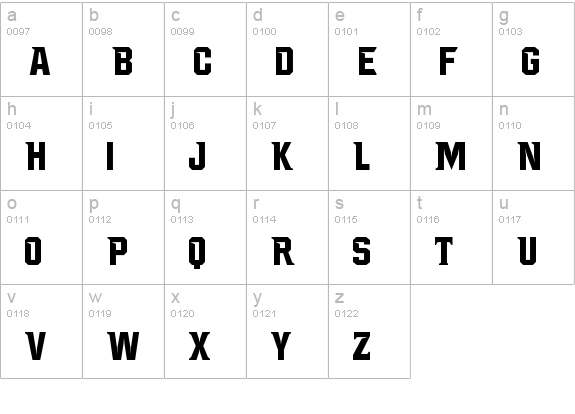
NCAA Michigan St Spartans Font Details
The NCAA Michigan St Spartans font is a stunning and bold typeface that captures the spirit of the Michigan State Spartans perfectly. With its strong and athletic letterforms, this font conveys a sense of power and determination, making it ideal for sports-related designs and projects. What sets this font apart is that it is not only visually striking but also freely available to download at FontsMarket.com. This means that anyone can easily access and utilize this remarkable font for their personal or professional designs without any cost. The NCAA Michigan St Spartans font features clean lines, sharp edges, and an overall sleek appearance, making it highly legible even at smaller sizes. Whether you're creating a logo, designing a sports poster, or crafting a t-shirt for game day, this font will make a bold statement and elevate your project to the next level. With its versatility and eye-catching aesthetics, the NCAA Michigan St Spartans font is sure to leave a lasting impression. So why wait? Visit FontsMarket.com today and download this exceptional font for free, allowing you to unleash your creativity and showcase your Spartan pride in style.